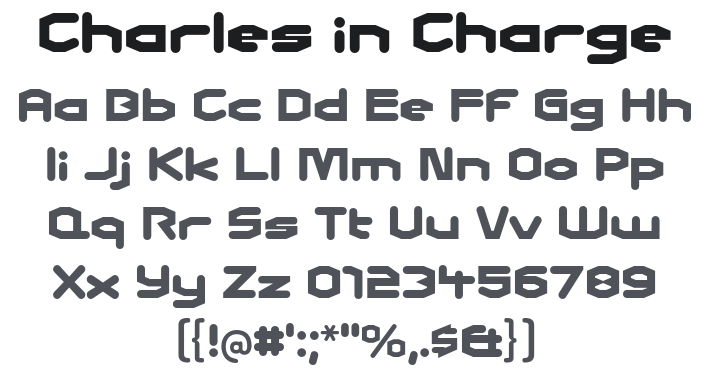
Charles in Charge Font
About Charles in Charge
Charles in Charge is a sharp, angular techno display typeface with a cool spy-thriller personality — its precise, methodical letterforms feel like classified documents and covert operations. Clean geometry gives it a serious, authoritative edge without feeling cold. Great for action game titles, espionage-themed designs, tech branding, cybersecurity posters, and any headline needing calculated, tactical style.